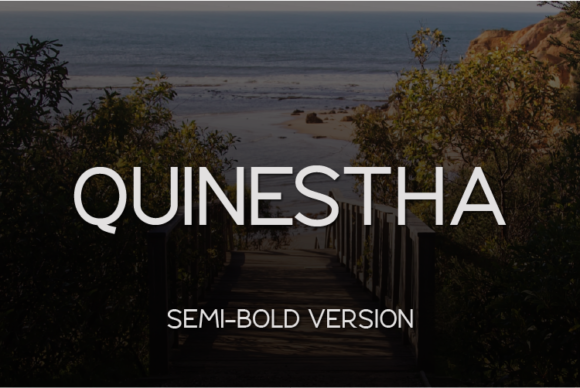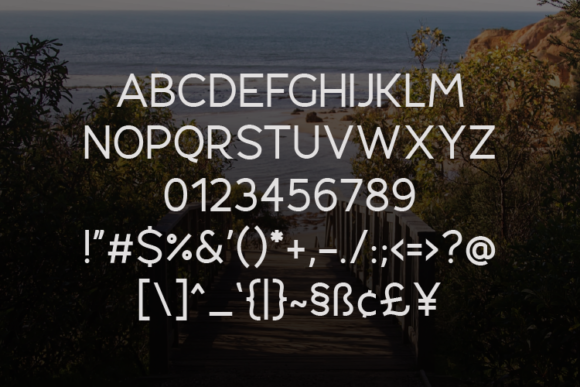
Quinestha is simple but elegant and defined by its crisp edges and modern touches. It is designed for optimal legibility and works great in branding, logos, headlines, high fashion and much more!